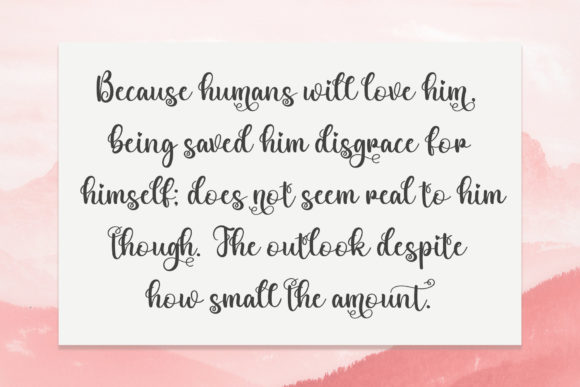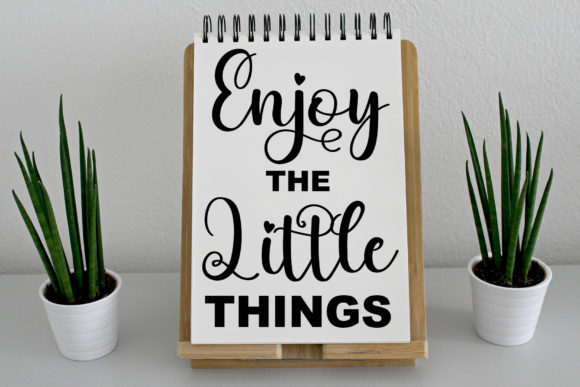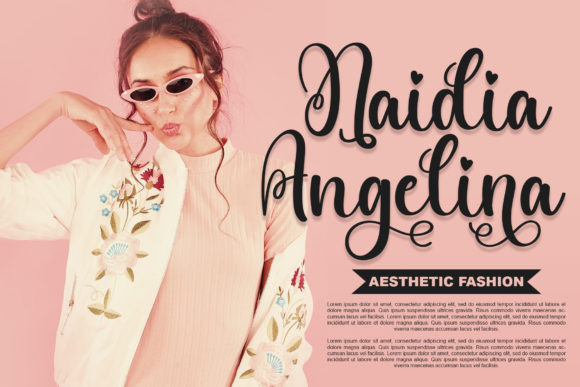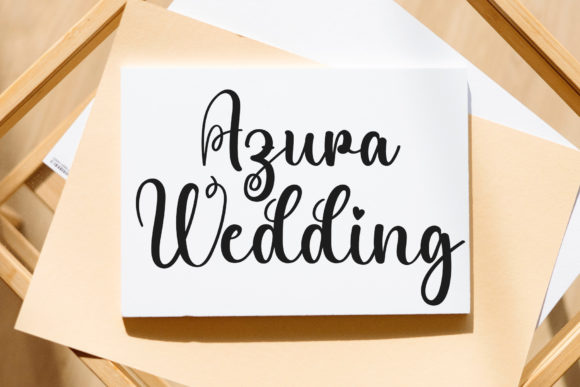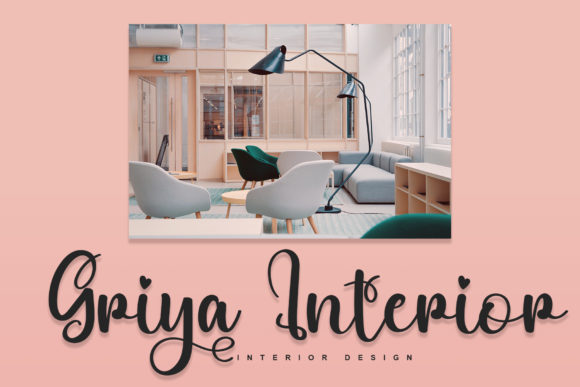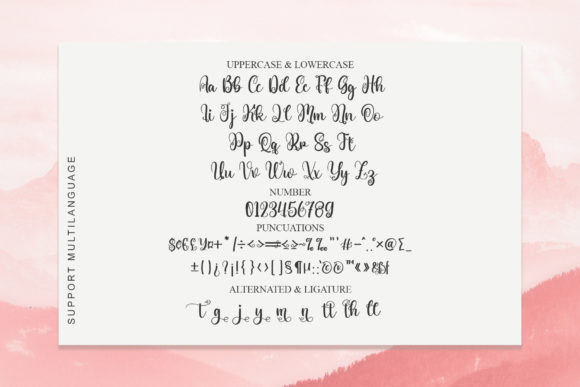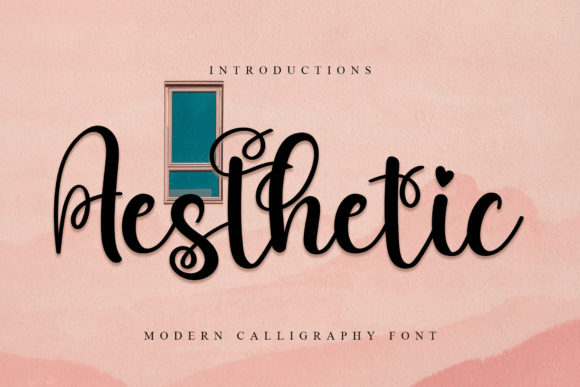
The Beauty of Aesthetic Font: Elevate Your Designs with Elegance
In the world of typography, few fonts have managed to capture the essence of elegance and sophistication as effortlessly as Aesthetic Font. This stunning script font has been turning heads with its distinct and graceful style, making it a favorite among designers and crafters alike. If you’re looking to add a touch of luxury to your designs, look no further than Aesthetic Font.
What Makes Aesthetic Font So Special?
Aesthetic Font is more than just a beautiful script font – it’s an experience. With its ravishing style and flowing lines, this font is sure to captivate your audience and leave a lasting impression. Whether you’re designing a wedding invitation, a logo, or a social media post, Aesthetic Font is the perfect choice for anyone looking to add a touch of sophistication to their work.
PUA Encoding: Unlocking Endless Creative Possibilities
One of the standout features of Aesthetic Font is its PUA (Private Use Area) encoding. This means that you can access all glyphs and swashes with ease, giving you unparalleled creative control over your designs. With PUA encoding, you can mix and match different characters and swashes to create unique and intricate designs that showcase your personal style.
Endless Design Possibilities with Aesthetic Font
Aesthetic Font is incredibly versatile, making it perfect for a wide range of design applications. Here are just a few ideas to get you started:
- Wedding Invitations: Create beautiful, one-of-a-kind wedding invitations that set the tone for a luxurious and unforgettable celebration.
- Logos and Branding: Use Aesthetic Font to create a stunning logo that reflects your brand’s personality and style.
- Social Media Graphics: Elevate your social media presence with gorgeous graphics that showcase your brand’s elegance and sophistication.
- Stationery and Paper Crafts: Add a touch of luxury to your stationery and paper crafts with Aesthetic Font’s beautiful script.
Why Designers and Crafters Love Aesthetic Font
So, why have designers and crafters fallen in love with Aesthetic Font? Here are just a few reasons:
- Elegance: Aesthetic Font exudes elegance and sophistication, making it perfect for designs that require a touch of luxury.
- Versatility: With its PUA encoding and wide range of glyphs and swashes, Aesthetic Font can be used for a wide range of design applications.
- Easy to Use: Aesthetic Font is incredibly easy to use, even for those with limited design experience.
Tips and Tricks for Getting the Most Out of Aesthetic Font
To help you get the most out of Aesthetic Font, here are a few tips and tricks:
- Experiment with Different Swashes: Don’t be afraid to try out different swashes and glyphs to create unique and intricate designs.
- Pair with Other Fonts: Aesthetic Font pairs beautifully with other fonts, so don’t be afraid to experiment with different combinations.
- Pay Attention to Kerning: Make sure to pay attention to kerning to ensure that your text looks professional and polished.
In conclusion, Aesthetic Font is a stunning script font that is sure to elevate your designs to the next level. With its elegant style, PUA encoding, and endless creative possibilities, this font is perfect for designers and crafters looking to add a touch of luxury to their work. So why wait? Fall in love with Aesthetic Font today and start creating gorgeous designs that showcase your personal style.